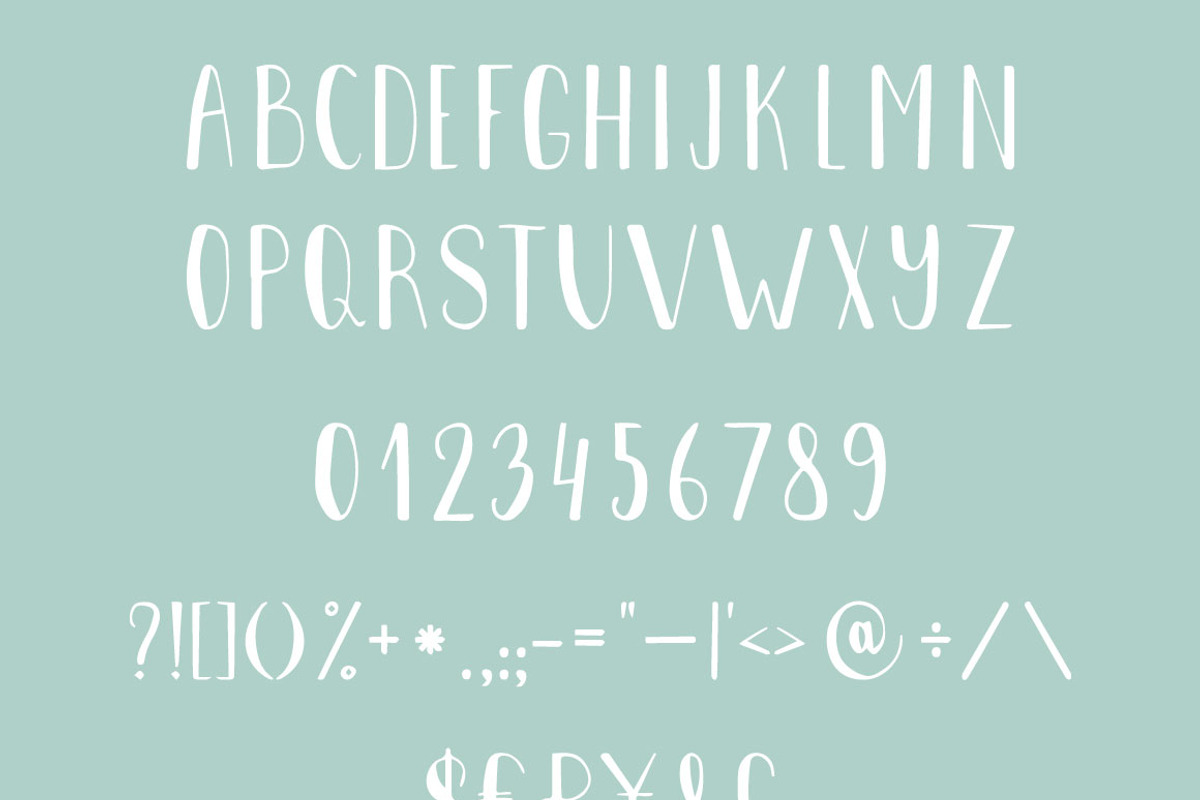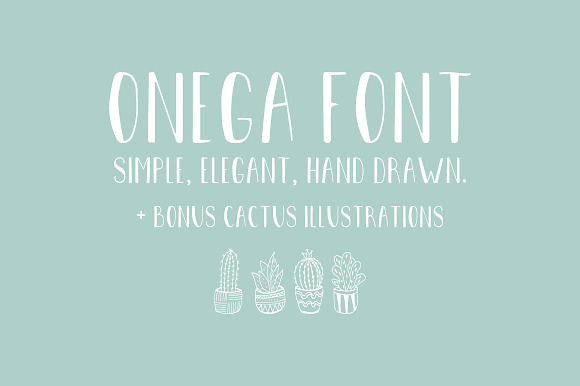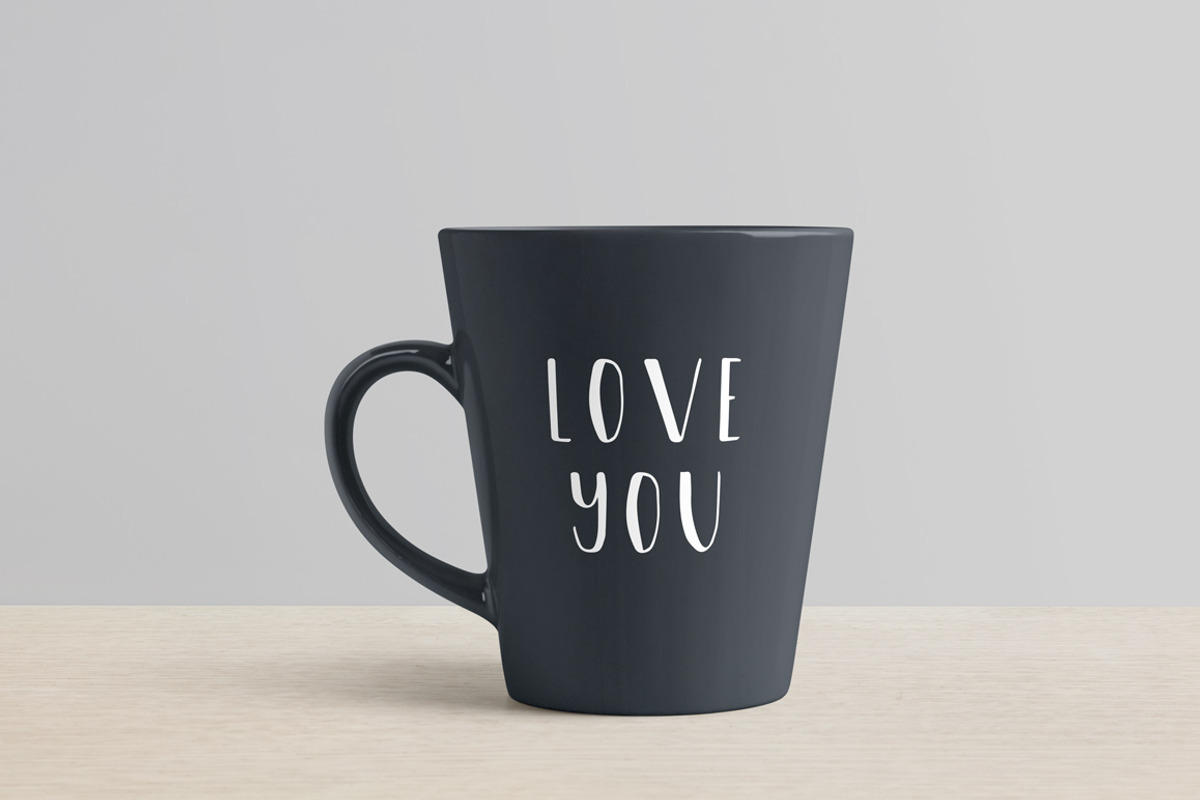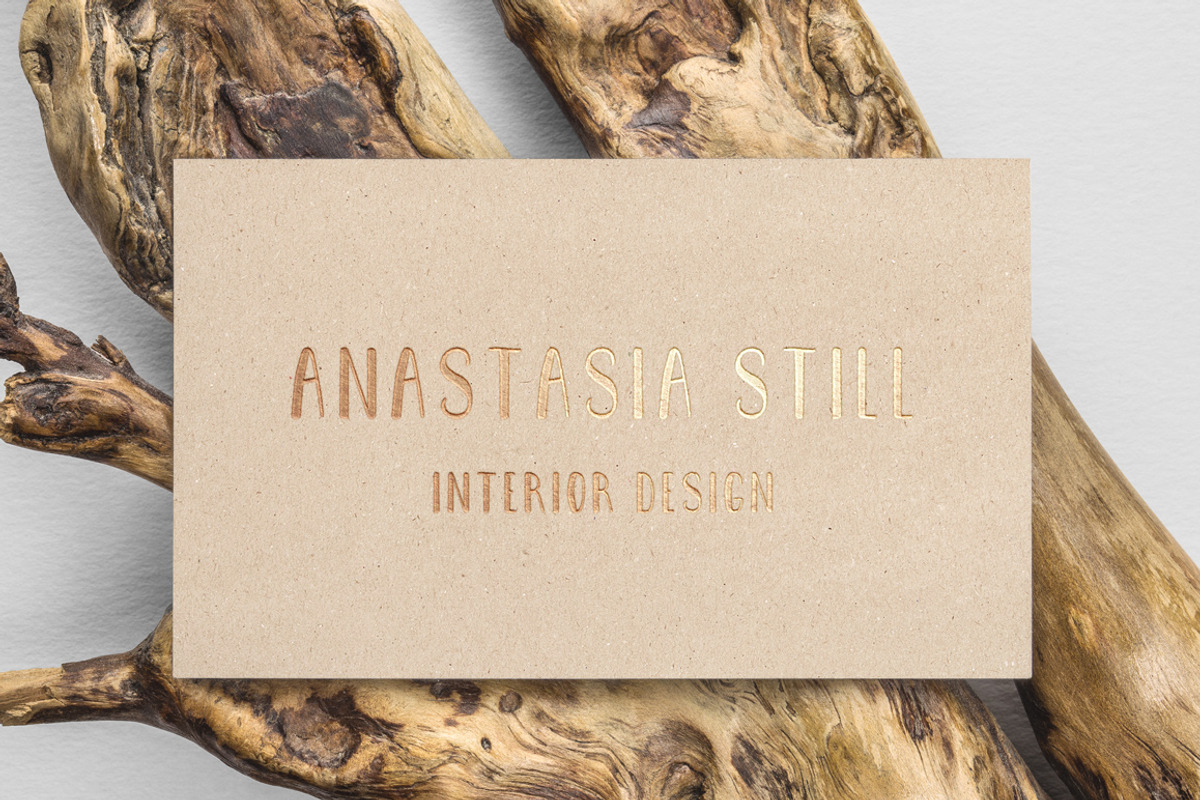
Onega Font
Onega is hand written font. Latin and cyrillic alphabet included. Otf file.
- Latin and cyrillic alphabet included.
Onega Font by Anatartan Design fits naturally into Branding, posters, packaging, typography.